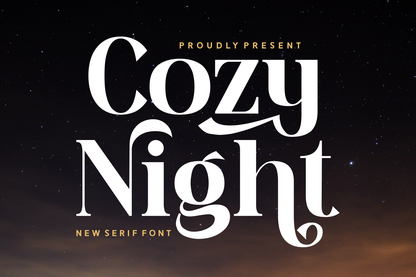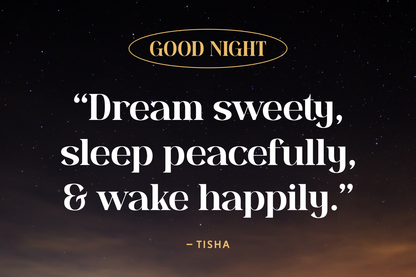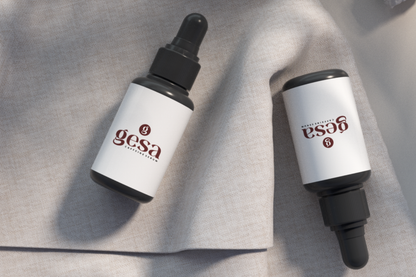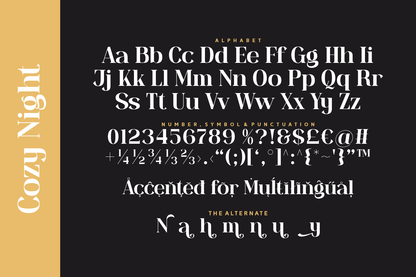
Cozy Night is a warm, inviting serif font with a modern twist and playful ligatures. Its strong contrast and swirled strokes make it ideal for romantic invitations, dreamy branding, or stylish headlines.
It blends elegance with comfort, making every project feel luxurious yet approachable.
Perfect for when your design needs a little magic and warmth.